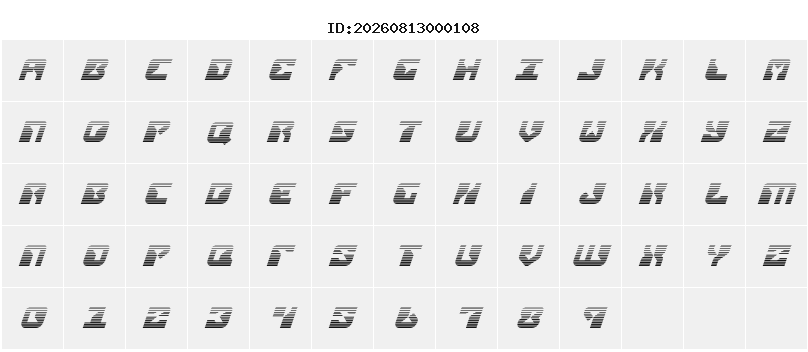
Replicant Gradient Italic Preview
About Replicant Gradient Italic.ttf
Replicant Gradient Italic.ttf is a modern, elegant sans-serif font designed for ultimate readability and visual harmony. Perfect for branding, headlines, web design, and print materials.